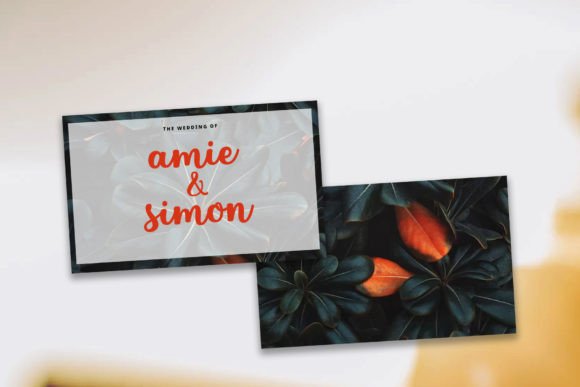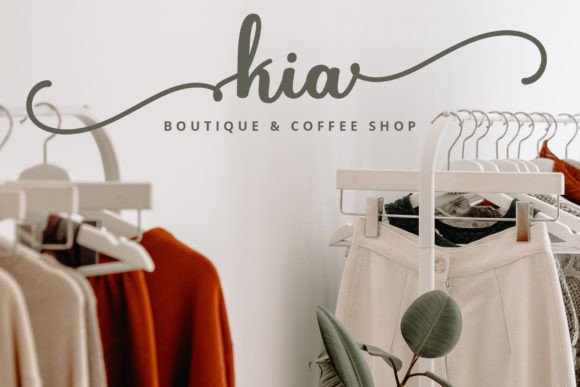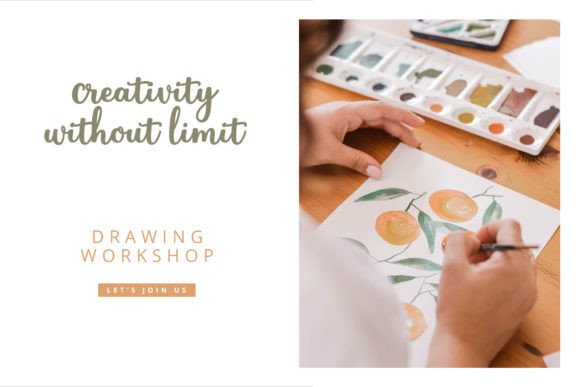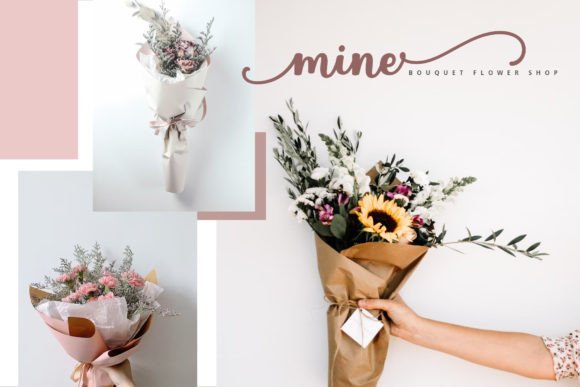
Discover the Elegance of Cardinal Font: Elevate Your Designs with a Delicate Touch
In the world of typography, few fonts manage to capture the essence of elegance and sophistication as effortlessly as the Cardinal Font. This beautiful, handwritten font is a treasure trove for designers and crafters looking to add a touch of delicacy and refinement to their projects. With its flowing lines and well-balanced characters, Cardinal Font is an excellent choice for a wide range of design applications, from wedding invitations and branding materials to blog posts and digital art.
The Characteristics of Cardinal Font
Cardinal Font is distinguished by its delicate and elegant appearance. Each character is carefully crafted to contribute to the overall harmony and aesthetic appeal of the font. The letters flow smoothly into one another, creating a sense of movement and fluidity that is both visually appealing and engaging. This characteristic makes Cardinal Font particularly suited for designs that require a touch of sophistication and grace.
One of the standout features of Cardinal Font is its versatility. Its well-balanced characters ensure that it can be used in a variety of contexts without losing its impact or elegance. Whether you’re working on a minimalist design or something more elaborate, Cardinal Font adapts seamlessly, allowing your creative ideas to shine.
Uses of Cardinal Font
The applications of Cardinal Font are vast and varied. Here are a few ways designers and crafters can make the most of this beautiful font:
- Wedding and Event Invitations: The elegant nature of Cardinal Font makes it perfect for wedding invitations, save-the-date cards, and other event-related materials. It sets the tone for a sophisticated and memorable occasion.
- Branding and Logo Design: For businesses looking to establish a brand identity that exudes elegance and refinement, Cardinal Font can be a valuable asset. It’s suitable for logos, packaging, and marketing materials.
- Blogging and Digital Content: Bloggers and content creators can use Cardinal Font to add a personal touch to their digital content. It’s ideal for headings, titles, and even body text, depending on the desired aesthetic.
- Digital Art and Graphics: For digital artists, Cardinal Font offers a wealth of creative possibilities. It can be used in digital illustrations, quotes, and other graphical elements to add an element of sophistication.
Tips for Using Cardinal Font Effectively
To make the most of Cardinal Font, consider the following tips:
- Pair it with Complementary Fonts: While Cardinal Font is beautiful on its own, it can also be paired with other fonts to create visual interest. Choose fonts that complement its elegance without overpowering it.
- Adjust Letter Spacing: Depending on the design, adjusting the letter spacing can enhance the flow and appearance of the text. Experiment with different spacings to find the perfect balance.
- Consider Color Choices: The color of the text can significantly impact the overall feel of the design. Soft pastels, rich jewel tones, or classic black and white can all work well with Cardinal Font, depending on the desired mood.
Cardinal Font is a versatile and elegant addition to any designer’s toolkit. Its delicate, flowing lines and well-balanced characters make it suitable for a wide range of projects, from elegant wedding invitations to sophisticated branding materials. By incorporating Cardinal Font into your designs, you can add a touch of refinement and elegance that elevates your work to new heights. So, don’t hesitate to experiment with this beautiful font and discover the difference it can make in your creative endeavors.
Whether you’re a seasoned designer or a crafter looking to add a professional touch to your projects, Cardinal Font is sure to inspire. Its timeless elegance and versatility make it an invaluable resource for anyone looking to create visually stunning and memorable designs.